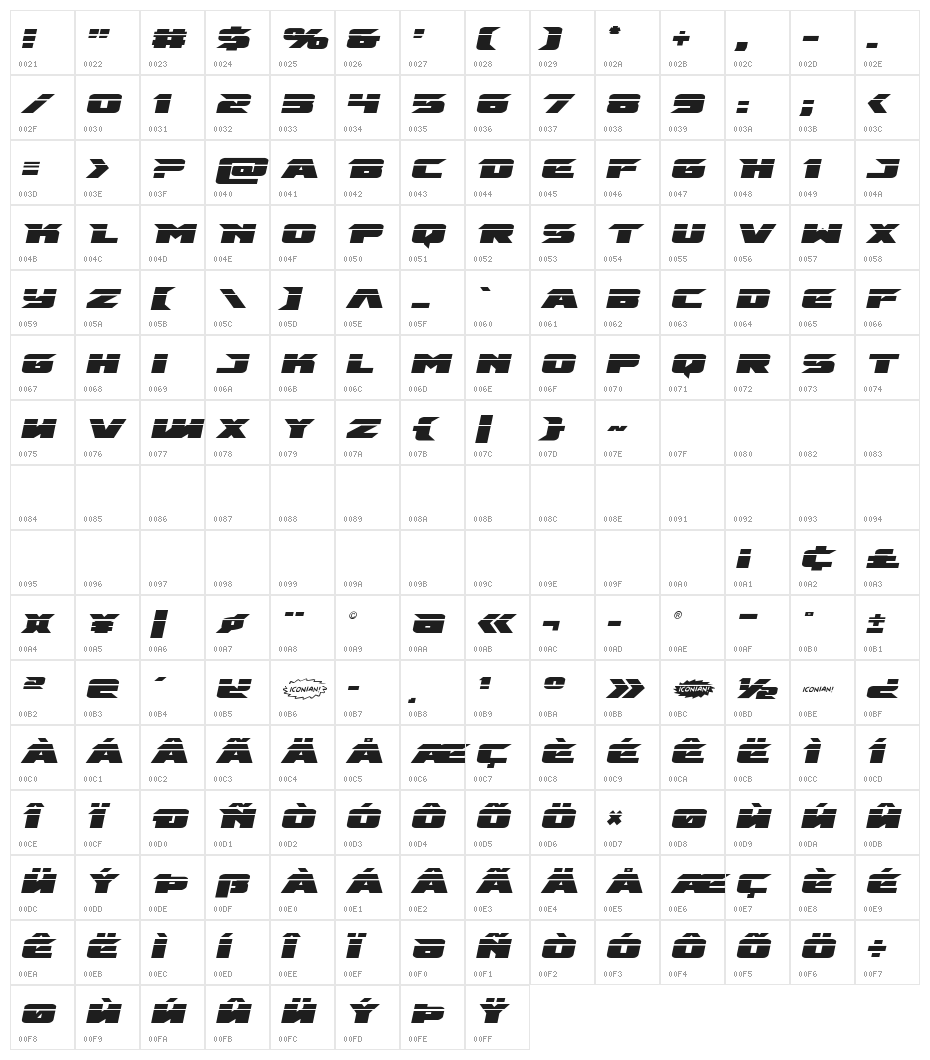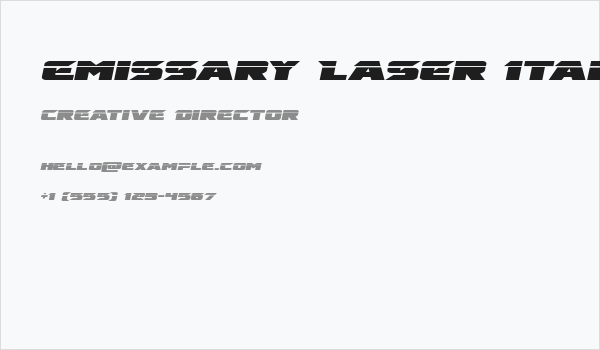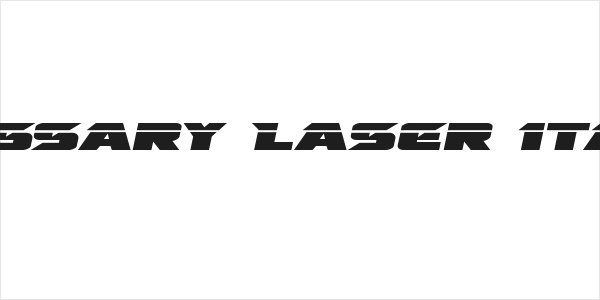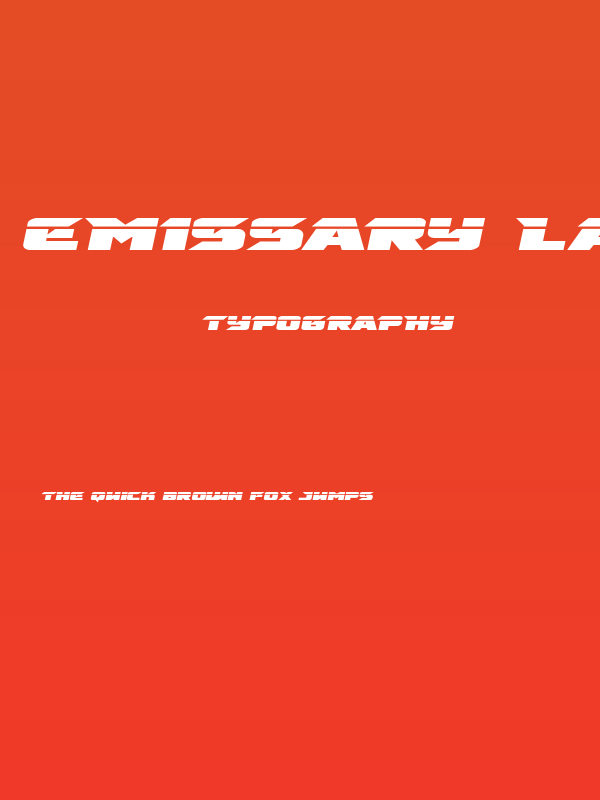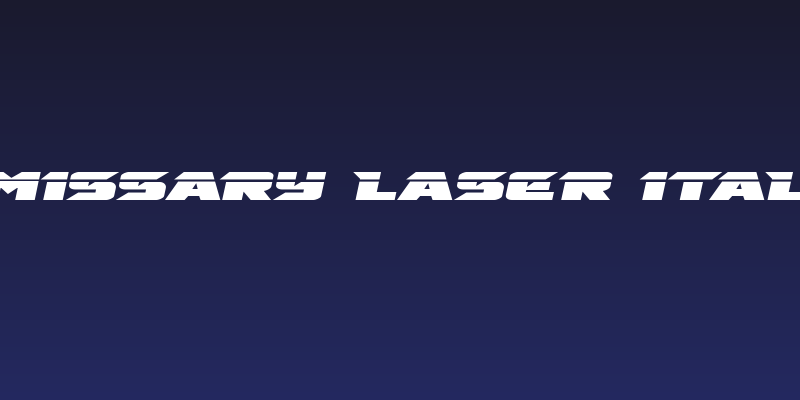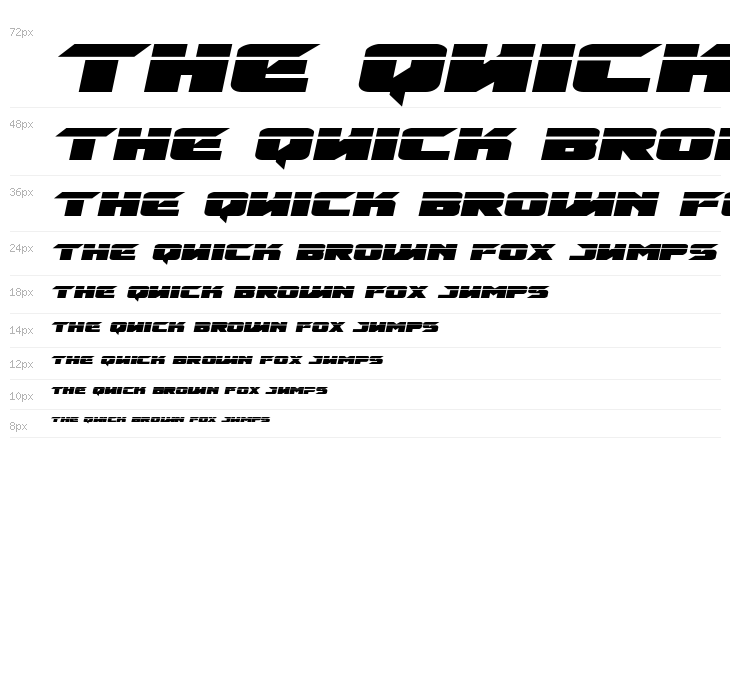
Emissary Laser Italic Font
Emissary Laser Italic Description
This font features a futuristic and dynamic design, characterized by sharp angles and a slanted, italicized form. The letters exhibit a bold and aggressive style, with a distinct geometric structure that suggests movement and speed. The uppercase and lowercase letters maintain a consistent angular theme, while the numbers and special characters integrate seamlessly with the overall aesthetic. The font's unique design makes it stand out, ideal for projects that require a modern and edgy look.
| Proposed Projects | Ideal for sci-fi themed projects, video game titles, movie posters, and branding that requires a modern and dynamic appearance. |